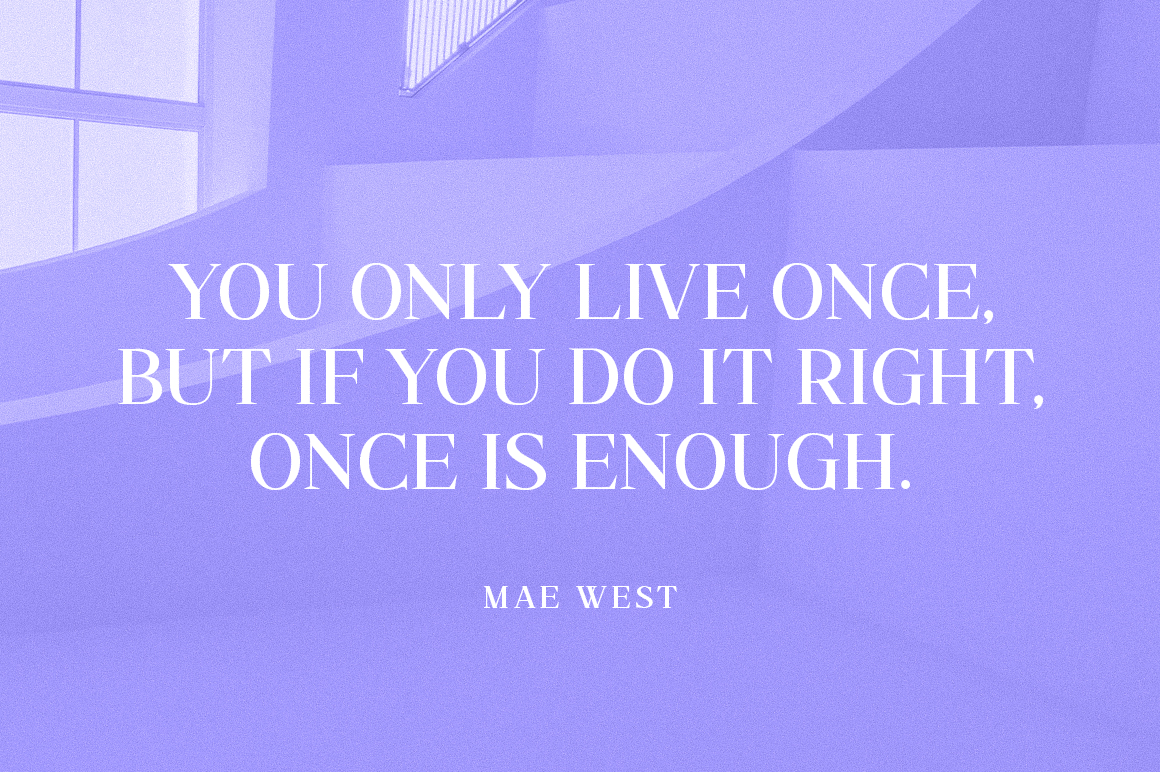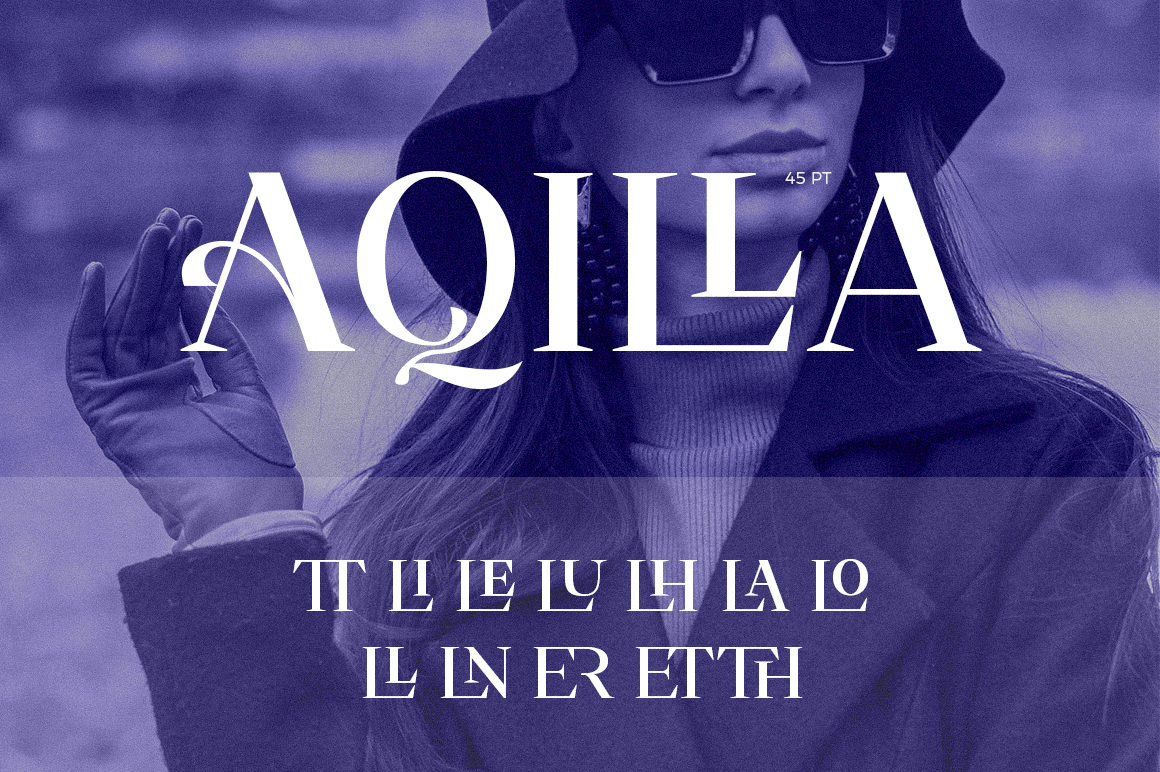
About Savinder
SAVINDER – ALL CAPS Serif! Savinder is a modern and elegant, classy all-capital typeface with unique curves and cuts making it one of the most memorable fonts; perfect for a magazine brand or title. You can also use this font for logos, branding, and…